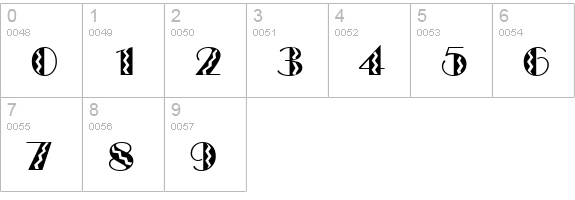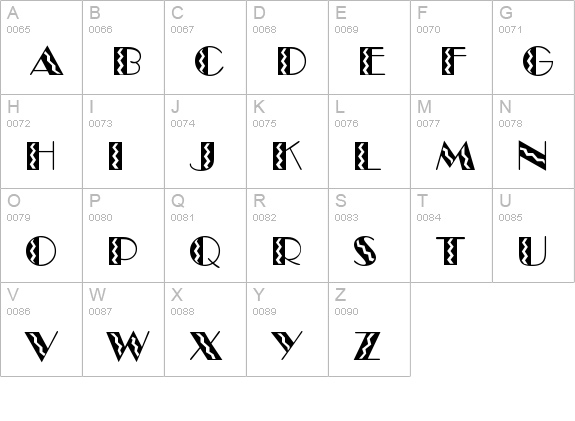
MarqueeFlash Font Details
MarqueeFlash font is a visually stunning typeface that captures the essence of vintage marquee signs, bringing a touch of nostalgic charm to your designs. Its bold, uppercase letters are meticulously crafted with clean lines and sharp edges, reminiscent of the flashing lights and vibrant colors that once adorned the streets. This font is a perfect choice for any project that requires attention-grabbing headlines, eye-catching posters, or captivating signage. Whether you're designing for a retro-themed party, a lively music event, or a trendy advertising campaign, MarqueeFlash font will add a unique and vibrant touch to your creations. What sets MarqueeFlash font apart is not just its striking design, but also the fact that it is available for free download. Yes, you read that right - this captivating font can be yours without spending a dime. It can be freely accessed and downloaded at FontsMarket.com, a trusted source for high-quality fonts. With MarqueeFlash font, you can take your designs to the next level, creating an instant impact and leaving a lasting impression on your audience. So why wait? Give your projects a touch of vintage flair and download MarqueeFlash font today, completely free of charge, from FontsMarket.com.